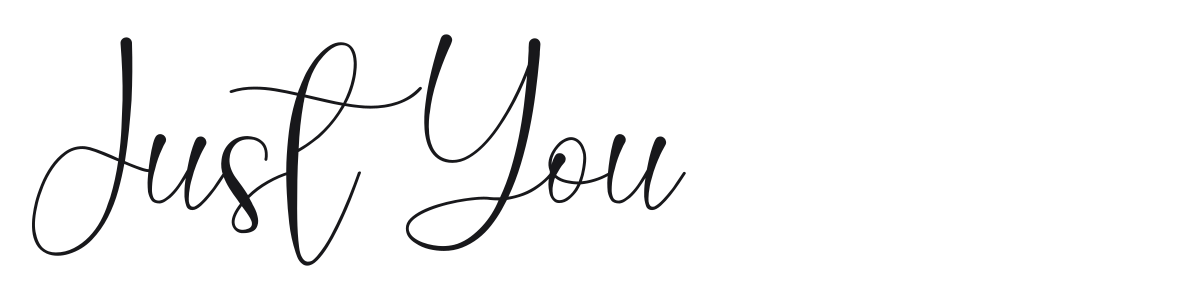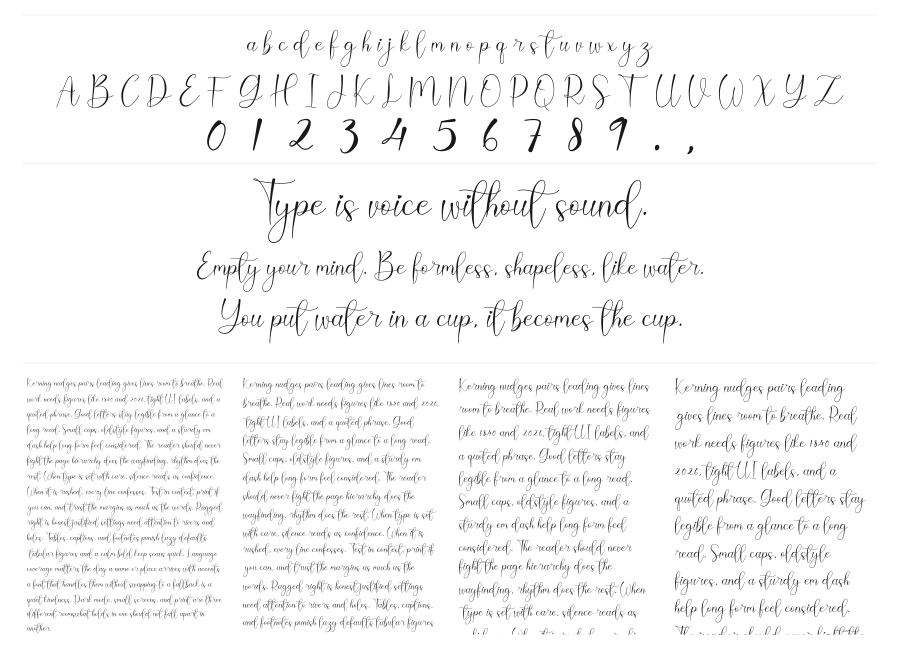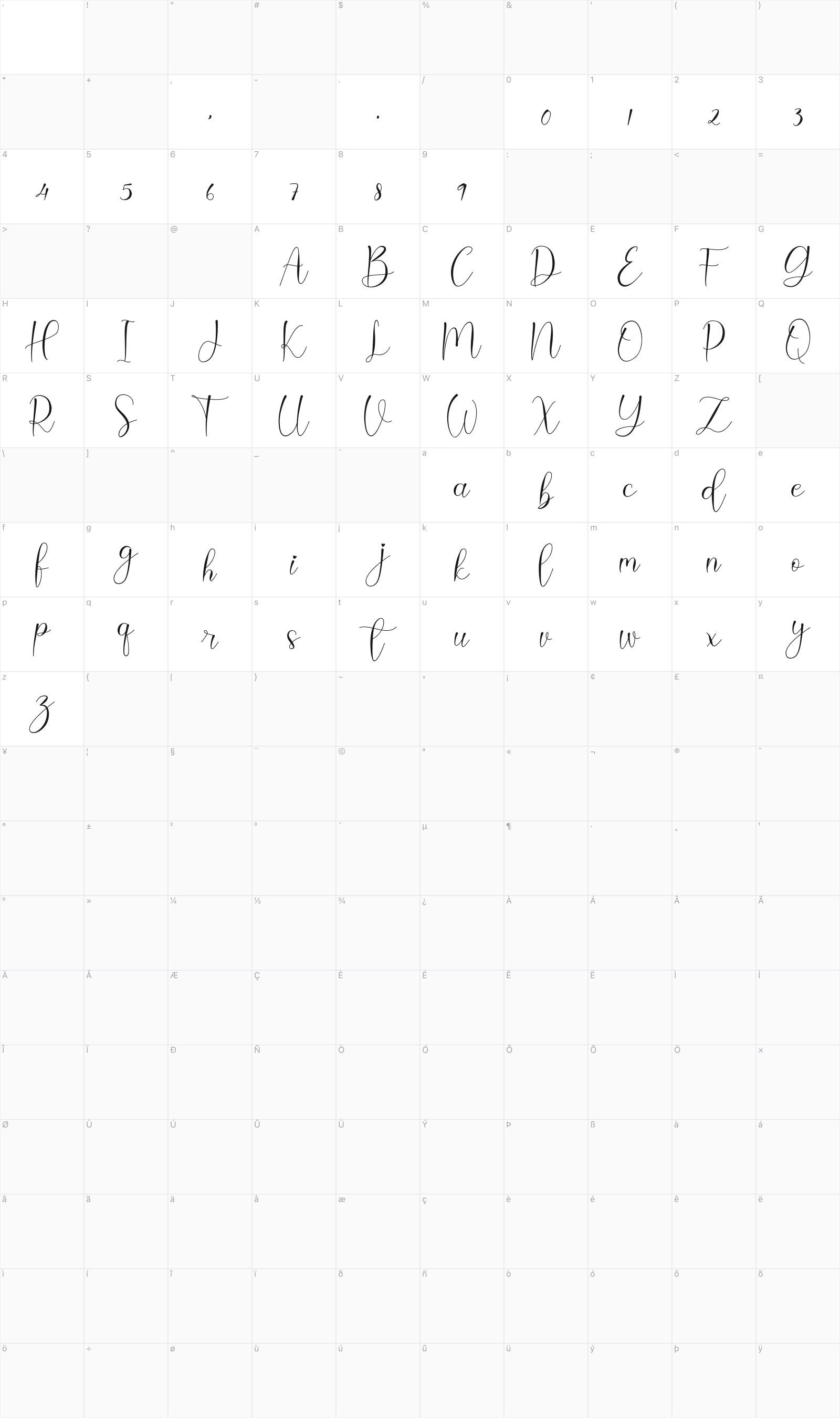
Just You
by Nabila
Just You is a breezy connected script with looping ascenders and a playful, bouncy rhythm. It sits somewhere between casual handwriting and modern calligraphy, with just enough flow to feel effortless without becoming illegible. The friendly weight and romantic personality make it a go-to for wedding stationery, greeting cards, and lifestyle branding.